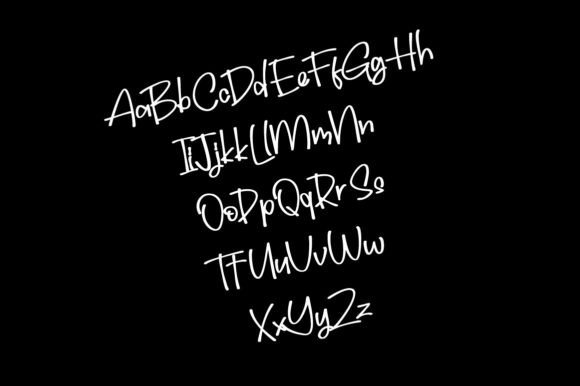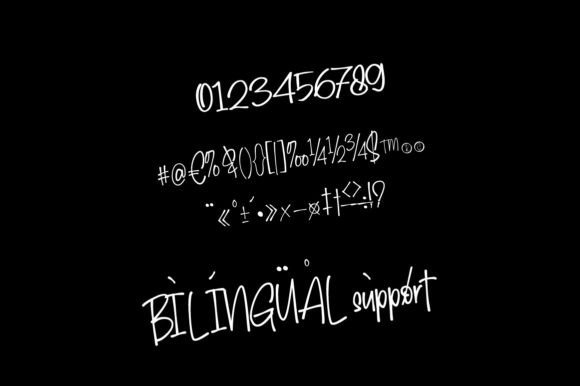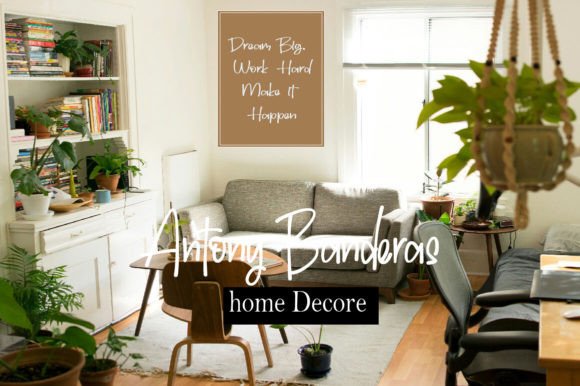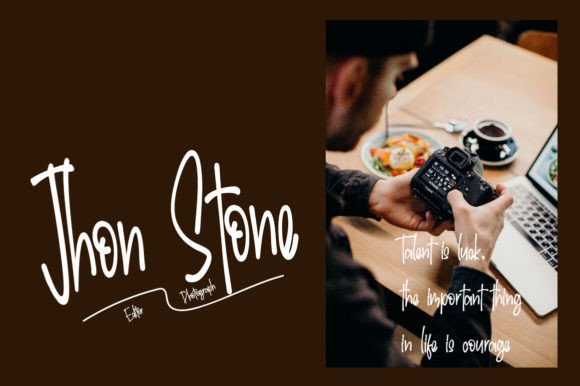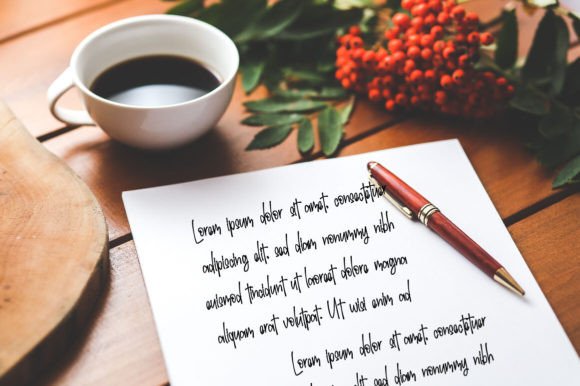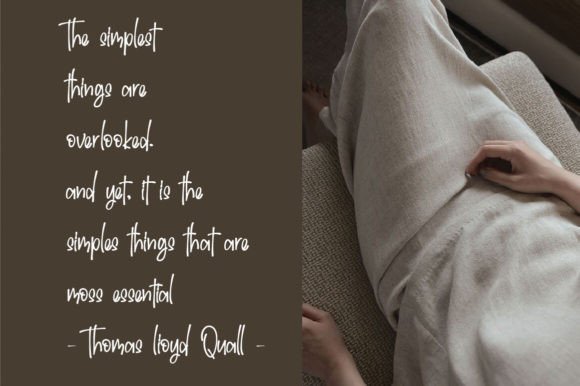
Introduction to July Style Font Font
Fonts play a crucial role in design, and the July Style Font font is a typeface that brings both character and versatility to any project. Whether you’re working on a branding project, a website, or a print design, the July Style Font font offers a unique style that can elevate your work.
July Style is a sweet and friendly handwritten font.
Key Features of July Style Font Font
Why Choose July Style Font Font?
The July Style Font font is more than just a typeface – it’s a design tool that helps you communicate your message with style and clarity. Its unique character set and versatile design make it suitable for a wide range of applications, from elegant invitations to bold headlines.
With its carefully crafted letterforms and balanced proportions, the July Style Font font ensures readability and visual appeal across all mediums.
What makes July Style Font font special?
The July Style Font font stands out with its unique design, exceptional readability, and versatility across various design applications.